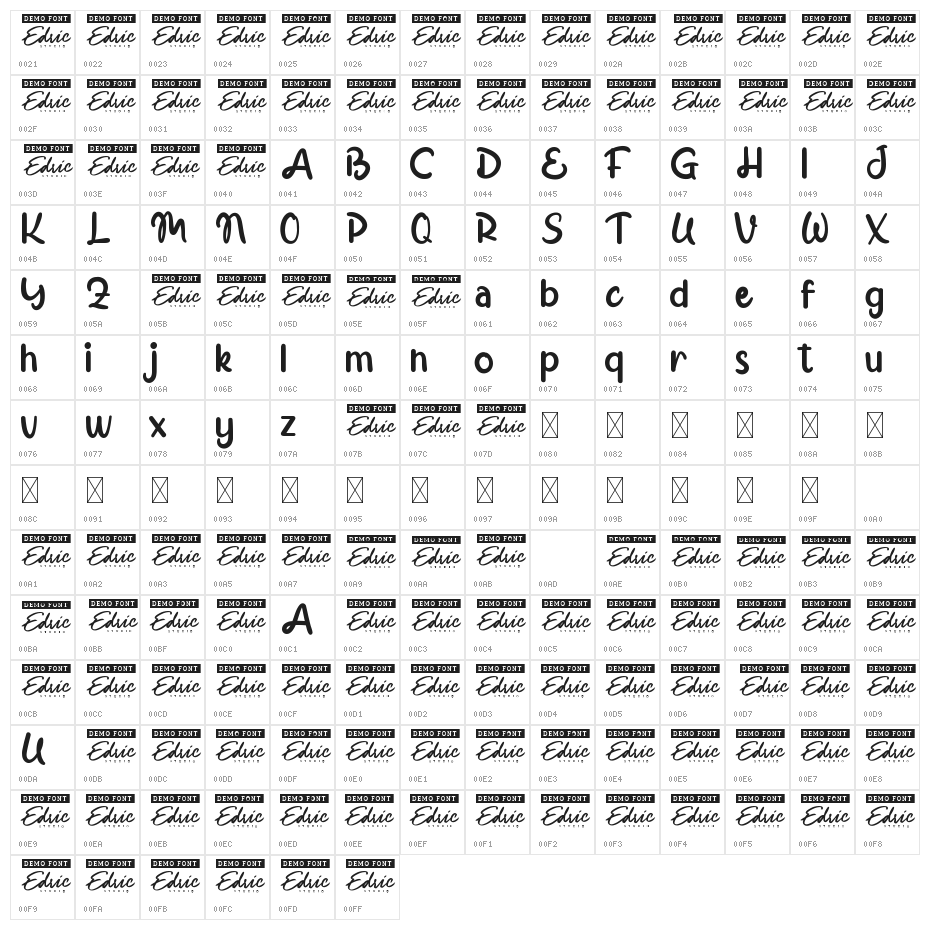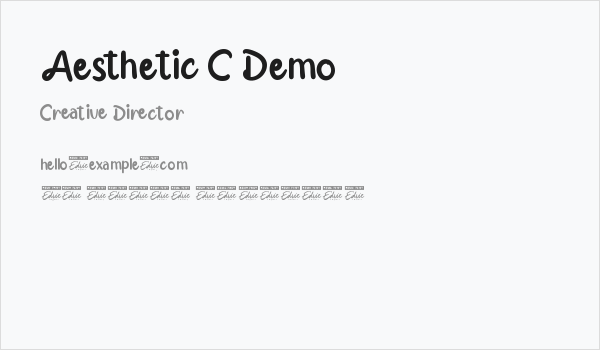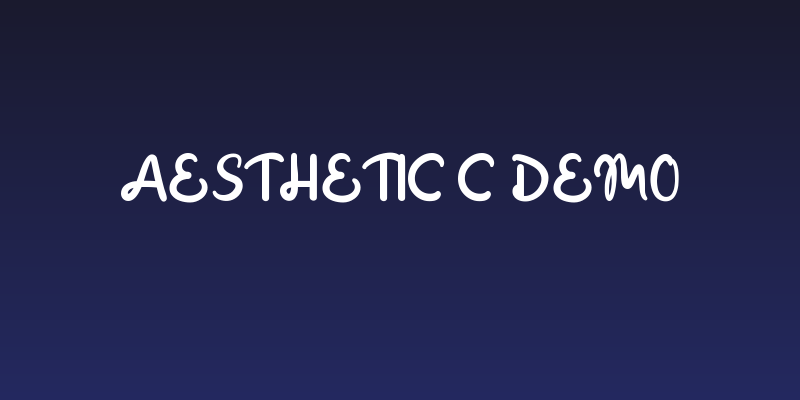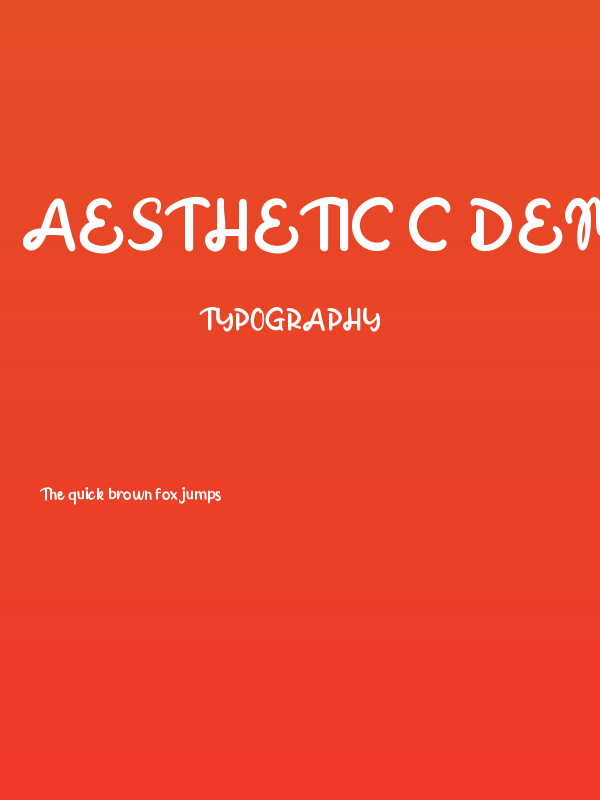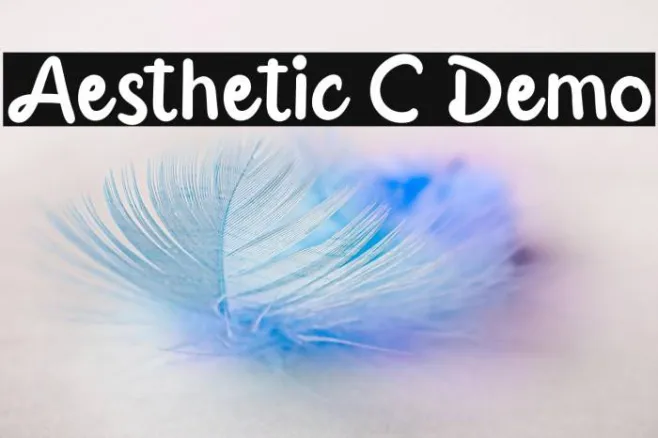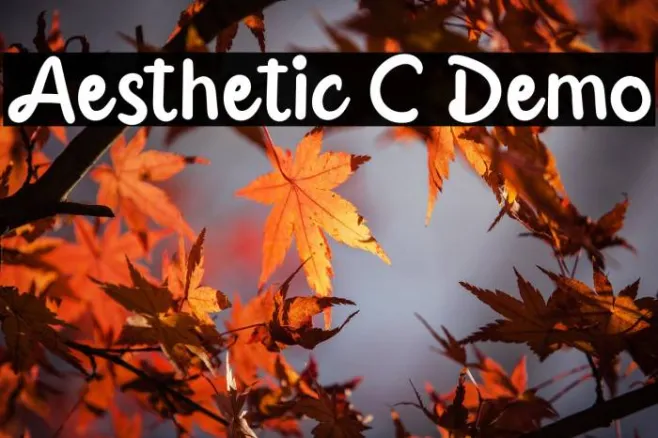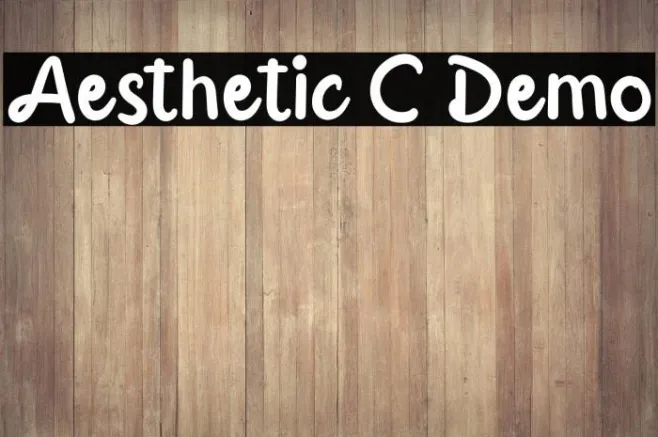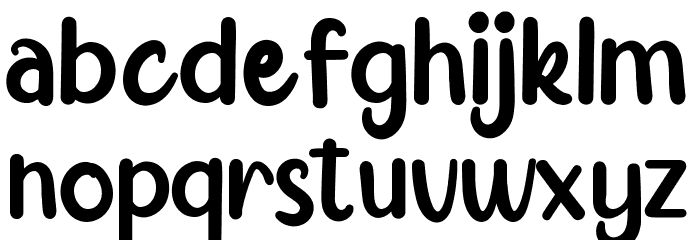
Aesthetic C Demo Font
Aesthetic C Demo Description
This font features a playful and casual style with rounded edges and a handwritten feel. The uppercase letters are bold and slightly whimsical, while the lowercase letters maintain a consistent flow and balance. The strokes are uniform, giving it a cohesive look. The font exudes a friendly and approachable vibe, making it suitable for creative and informal projects. Its unique character shapes add a touch of personality, making it stand out in various design contexts.
| Overall Style | Casual |
| Use Case | Headlines, Logos, Informal Text |
| Proposed Projects | Ideal for greeting cards, children's books, playful branding, and social media graphics. |